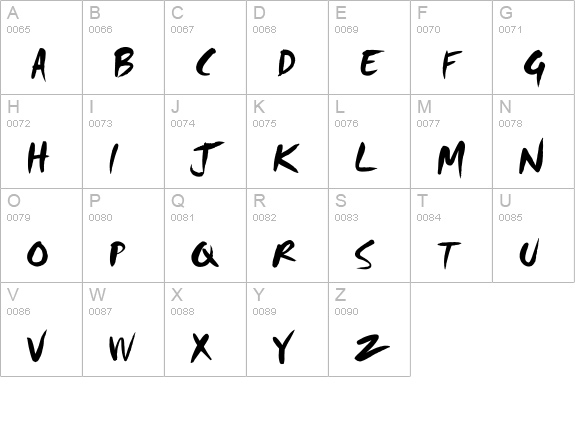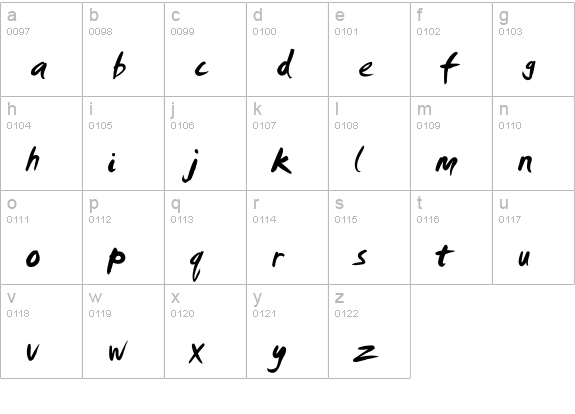
Smudger LET Font Details
Introducing Smudger LET, a captivating and versatile font that effortlessly transitions between elegant and playful designs. With its unique smudged edges, this font exudes a sense of creativity and artistic flair, making it perfect for a wide range of design projects. Smudger LET is a free font that offers a refreshing twist on traditional typography. Its imperfect yet charmingly hand-drawn appearance adds a touch of authenticity to any design, capturing attention and leaving a lasting impression. This font is incredibly versatile, allowing you to explore various design possibilities. Whether you're creating eye-catching logos, captivating headlines, or stylish invitations, Smudger LET will elevate your designs with its distinct character and charm. The best part? Smudger LET is freely available for download at FontsMarket.com. You can effortlessly bring your creative visions to life without any limitations, making this font a must-have addition to your design toolkit. With its wide range of characters and extensive language support, Smudger LET ensures that your message will be conveyed with clarity and impact, no matter the audience. Its smooth curves and carefully crafted letterforms create a harmonious balance between readability and artistic expression. Smudger LET is designed to make your designs stand out from the crowd. So why settle for ordinary when you can unleash your creativity with this remarkable free font? Download Smudger LET today from FontsMarket.com and let your imagination run wild.